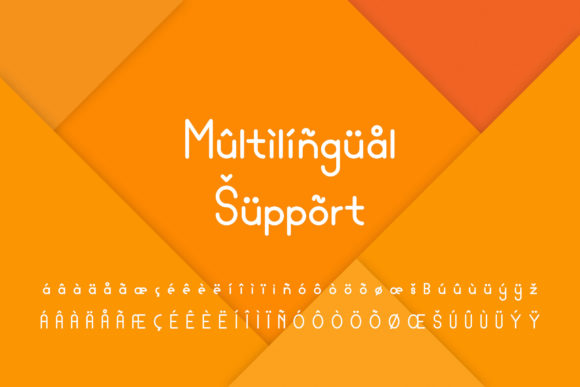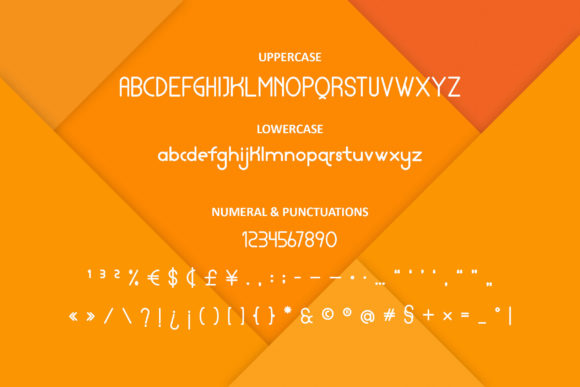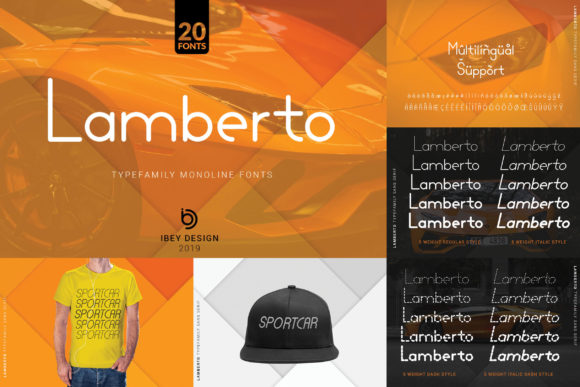
Introduction to Lamberto Bold Font
Have you ever been working on a creative project and struggled to find the perfect font to bring your vision to life? I know I have. There’s nothing more frustrating than staring at a blank page, trying to decide on the right font to use for your project. But what if I told you that there’s a font that could change the game for you? Introducing the Lamberto Bold Font, a stunning monoline display font that’s sure to make your designs stand out.
The Lamberto Bold Font is more than just a font – it’s a design resource that can elevate your work to the next level. With its incredibly bold and contemporary approach to classic lettering, this font is perfect for designers who want to add a touch of sophistication and elegance to their projects. Whether you’re working on a logo, a branding project, or a graphic design piece, the Lamberto Bold Font is a high-quality resource that’s sure to impress.
Key Features of Lamberto Bold Font
- High-quality font designed for creative projects, suitable for use in various design contexts.
- Features a bold, modern design that is perfect for adding a touch of sophistication to any creative project.
- Perfect for designers looking for a high-quality design resource that is both stylish and versatile.
Honest Review: Lamberto Bold Font
As a designer, I’m always on the lookout for high-quality design resources to enhance my creative projects. Recently, I stumbled upon the Lamberto Bold Font, and I must say it’s been a game-changer. With its clean lines and modern aesthetic, this font is perfect for adding a touch of sophistication to any design.
- ✨ Works well in a variety of contexts, from corporate branding to creative projects.
- ✨ Can be easily paired with other fonts to create a unique visual identity.
- ✨ High-quality vector format ensures crisp and clear rendering on any device.
- ⚠️ Limited font weights, which may not be ideal for designs that require a range of weights.
- ⚠️ Not as versatile as some other fonts on the market, which may limit its use in certain contexts.
Overall, I’m impressed with the Lamberto Bold Font. While it may have some limitations, its high quality and versatility make it an excellent addition to any designer’s toolkit.
For a more professional look, pair Lamberto Bold Font with other design resources like images, graphics, and colors. You can also experiment with different font sizes and styles to add visual interest to your design.
Lamberto Bold Font is a great resource for creative projects, including logos, business cards, and social media graphics. It’s also a popular choice for presentations and reports due to its high-quality design and transparent background.